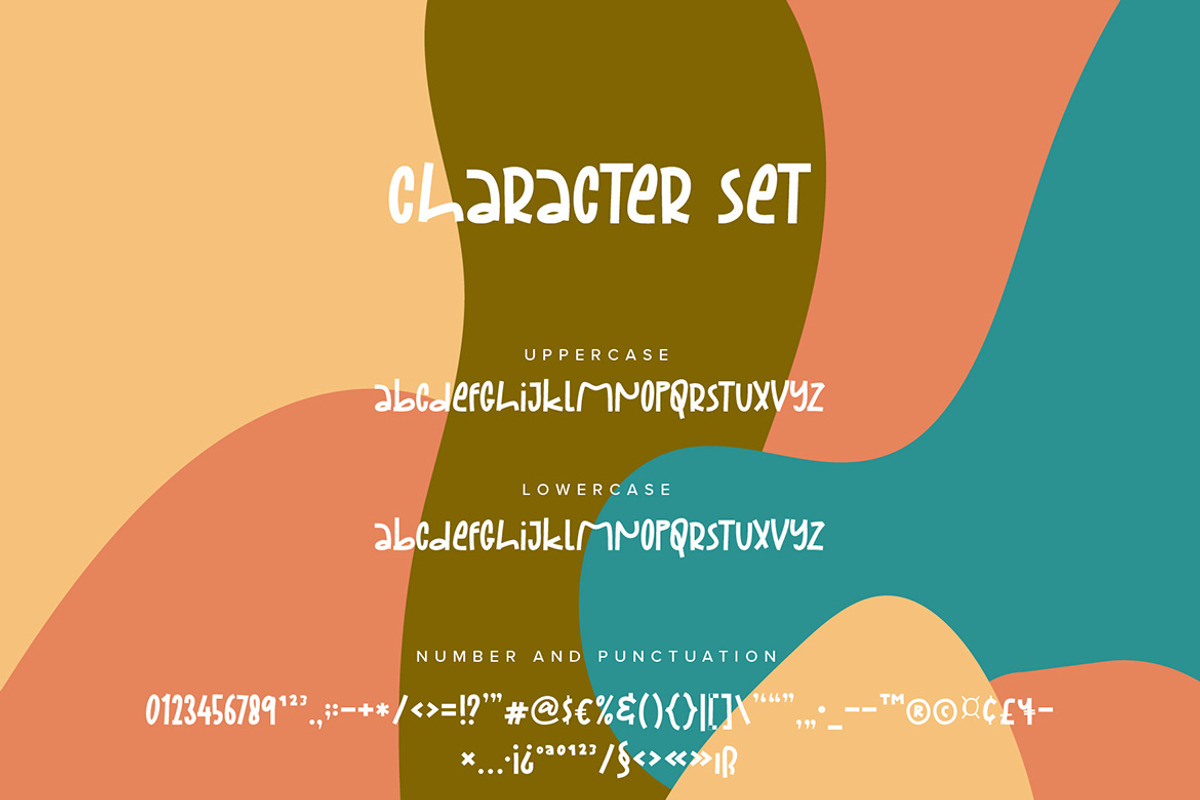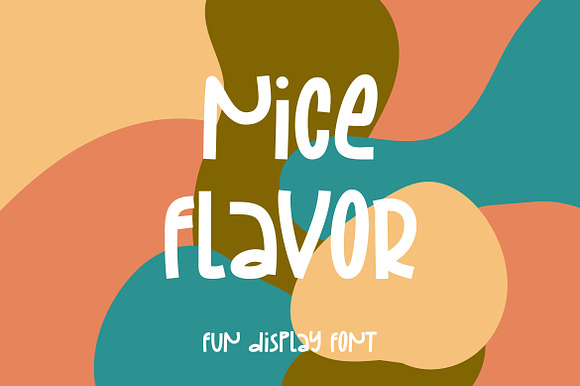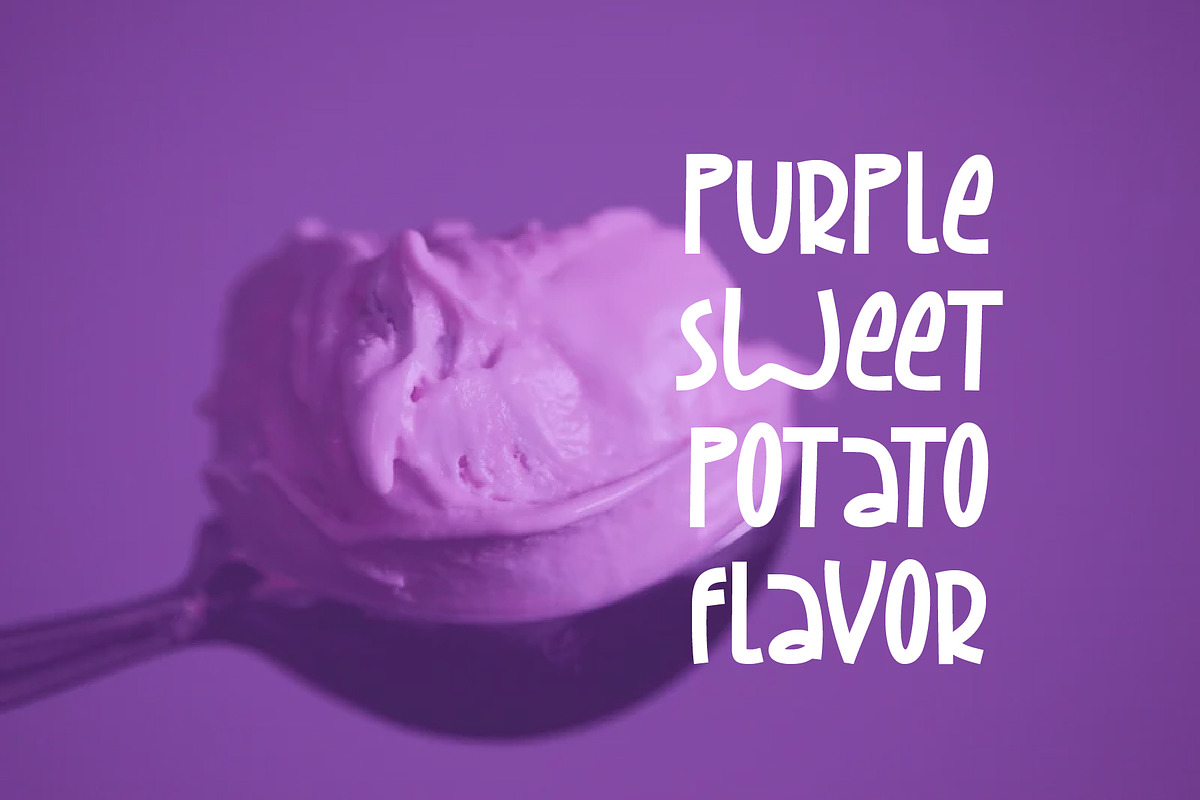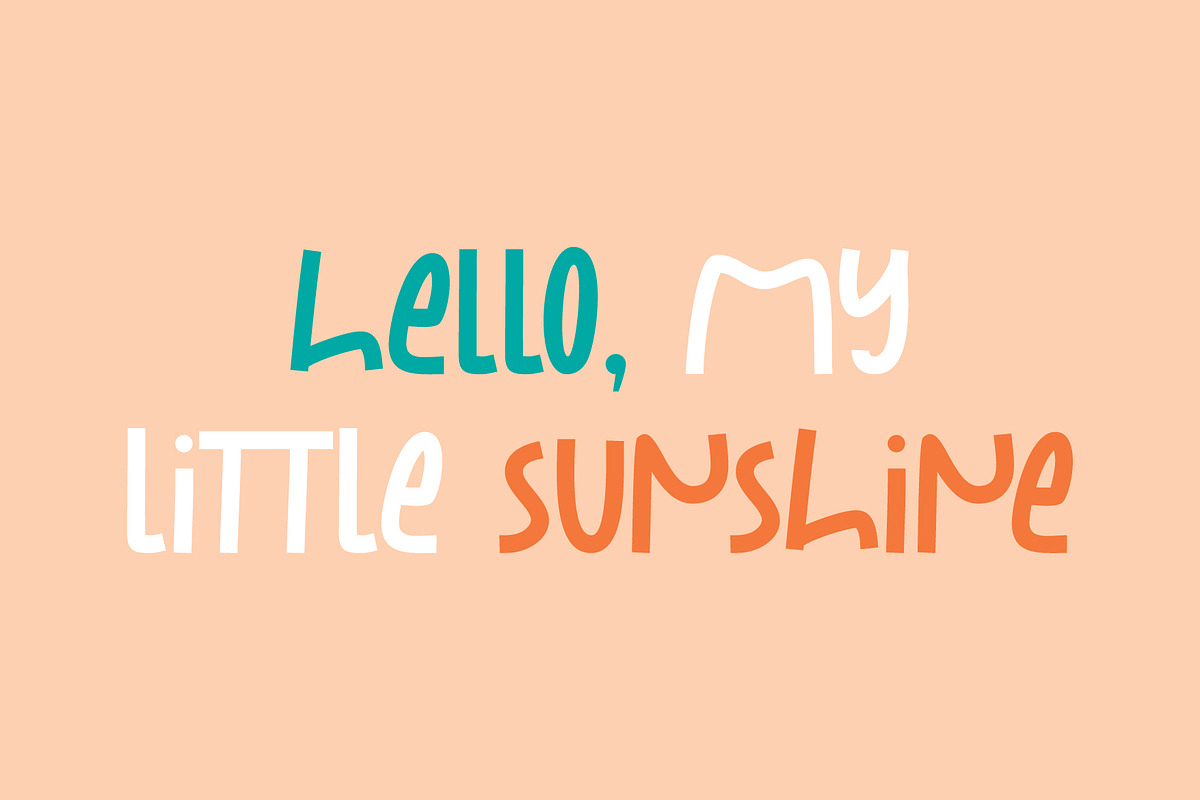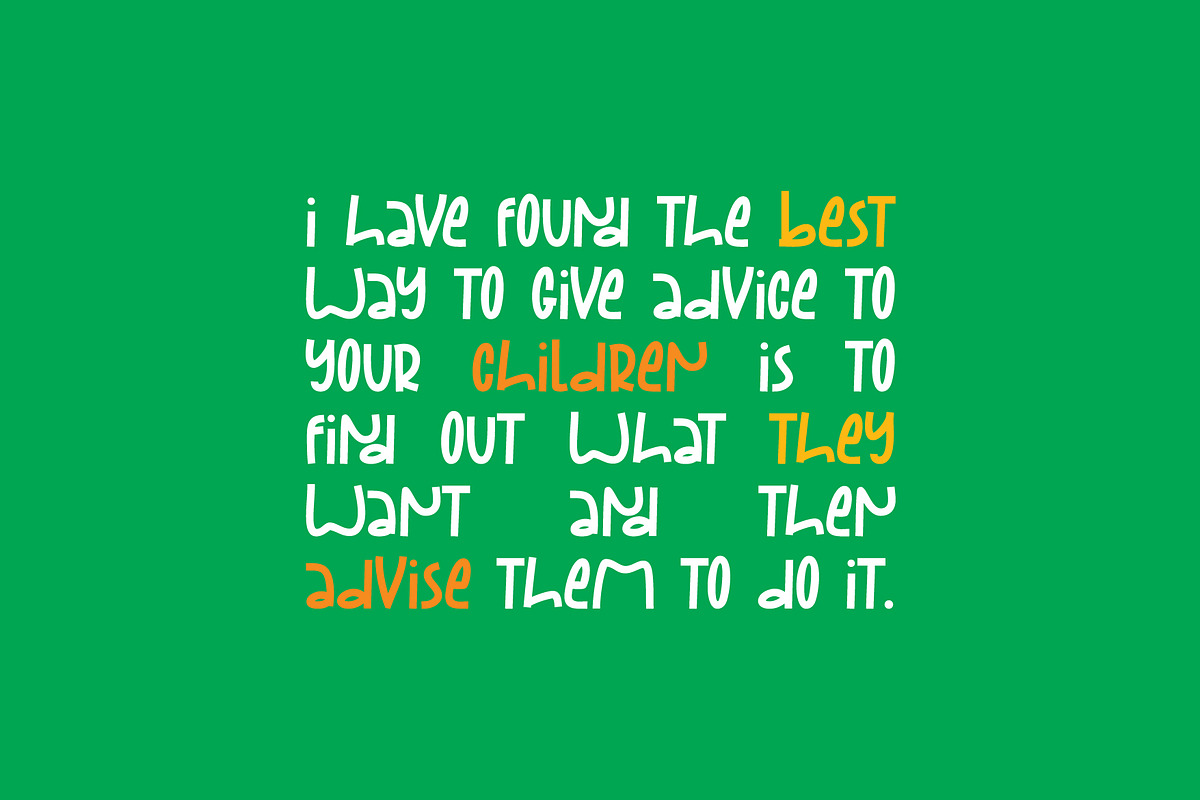
Nice Flavor - Fun Display Font
Nice Flavor is a font created with fun style and to fit to use as branding project designs. It features a unique style and will add unique feel to your upcoming projects. Get inspired by its unique feel and use it to create designs, posters, brand logo, product packaging and many more!
Why Nice Flavor - Fun Display Font is worth a look
Nice Flavor - Fun Display Font by Kreativ Space fits naturally into Branding, posters, packaging, typography.